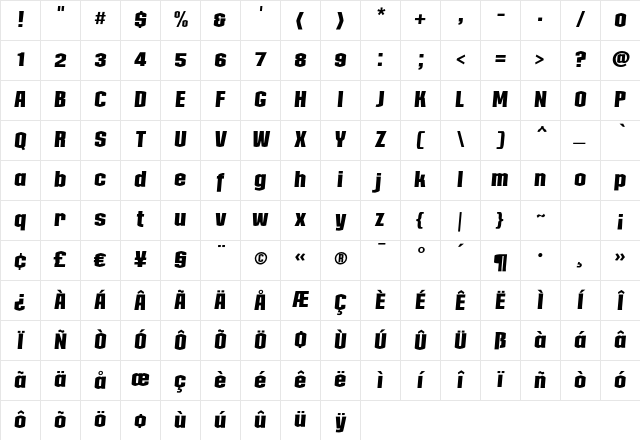
Collos MediumItalic
Design Context for Collos
Collos is a composed and adaptable typeface that performs quietly and consistently across a wide range of design contexts. The slanted form adds forward momentum and visual energy.
Pro Tip: Use Collos for emphasis, pull quotes, and subheadings where its slanted energy can add rhythm to the layout.